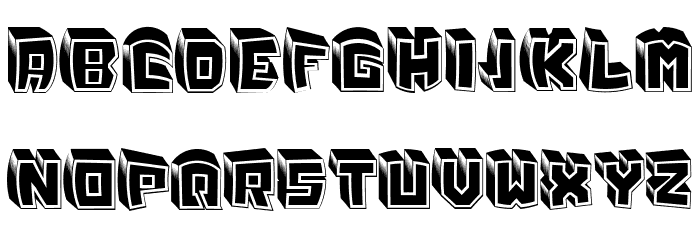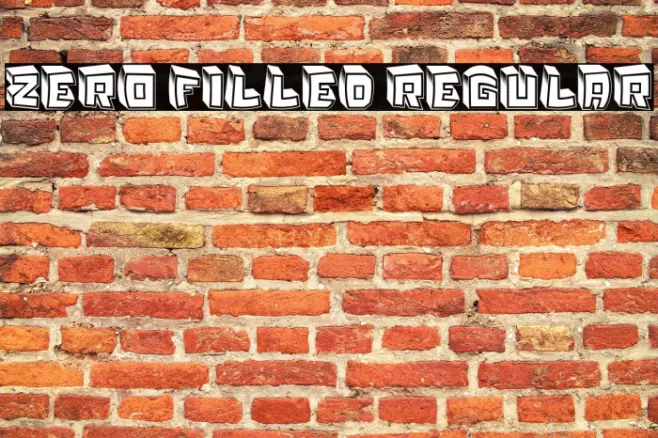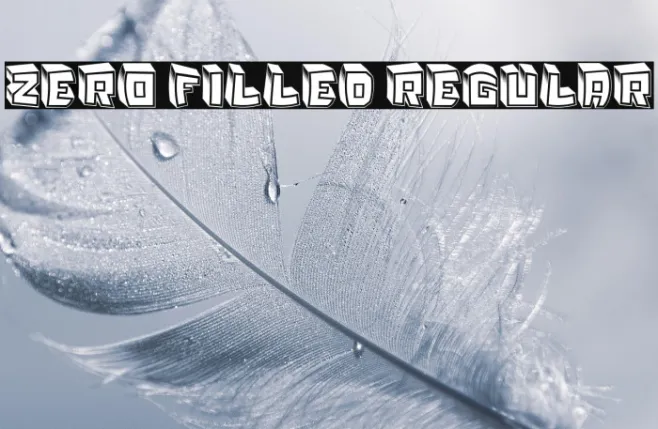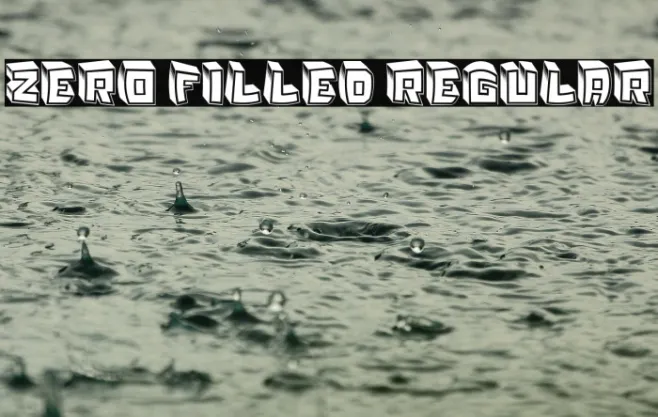
Zero Filled Regular Font
This font features a bold, three-dimensional style with a strong geometric influence. Each character is outlined with a thick black stroke, creating a striking contrast against the white interior. The letters have a blocky, angular design, giving them a futuristic and dynamic appearance. The font's shadow effect adds depth and a sense of movement, making it highly eye-catching. Its unique style is ideal for projects that require a modern and impactful visual statement.
A bold, 3D geometric font with strong contrast and dynamic style.
- Font: Zero Filled Regular
- Proposed Projects: Ideal for posters, video game titles, branding, and any design requiring a modern, impactful look.